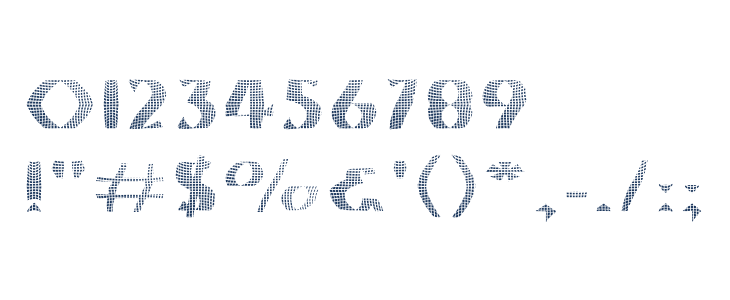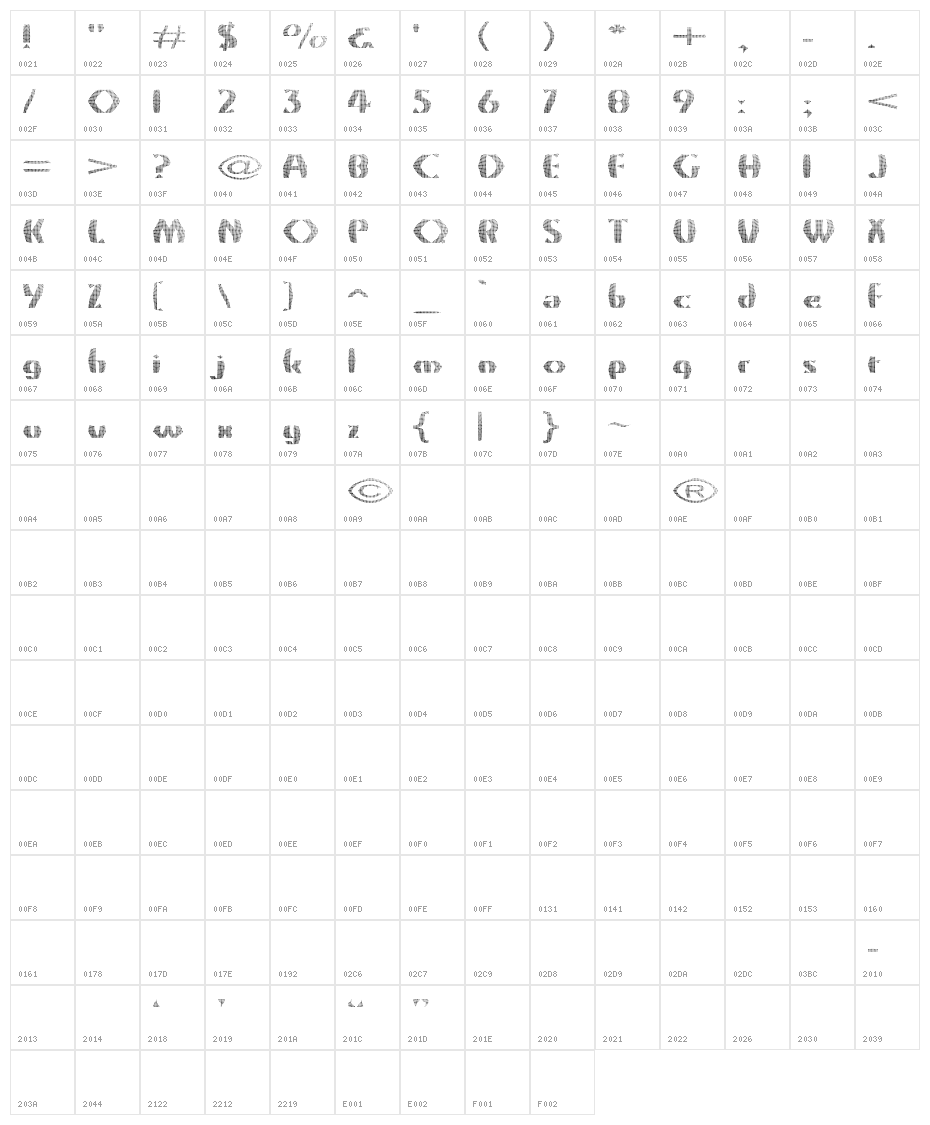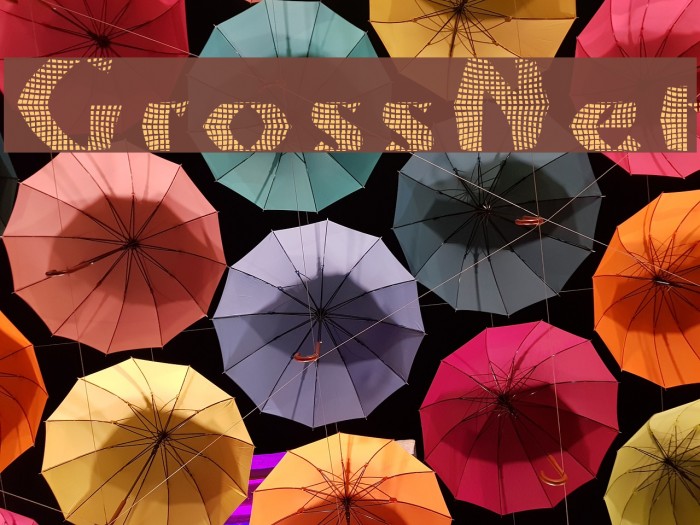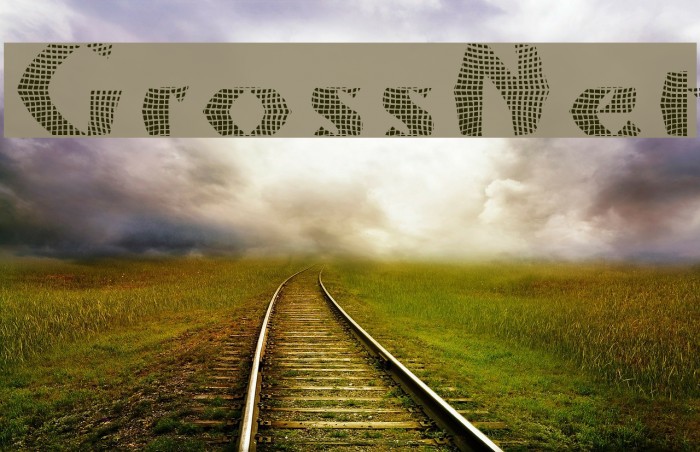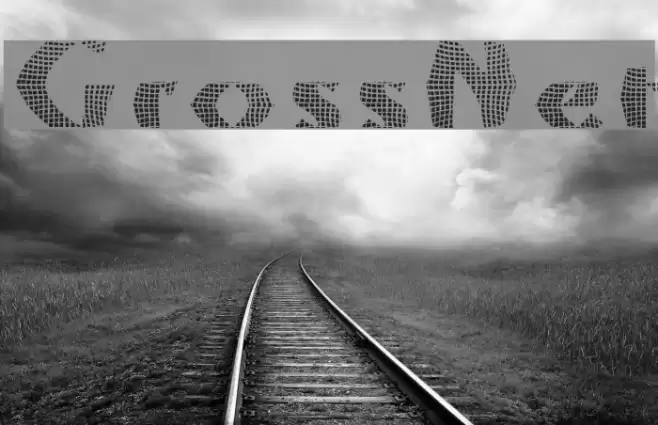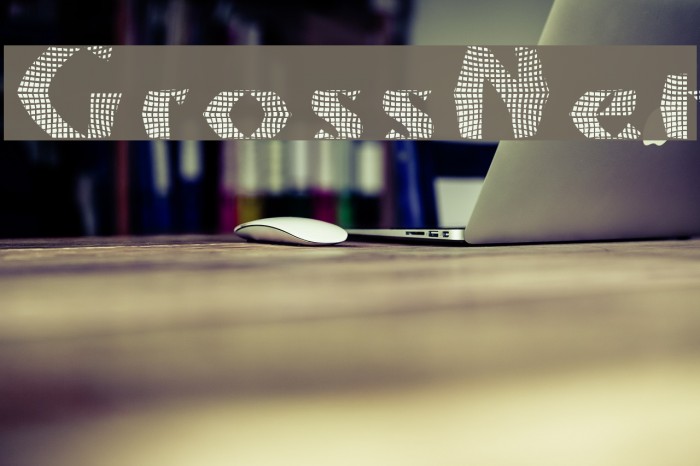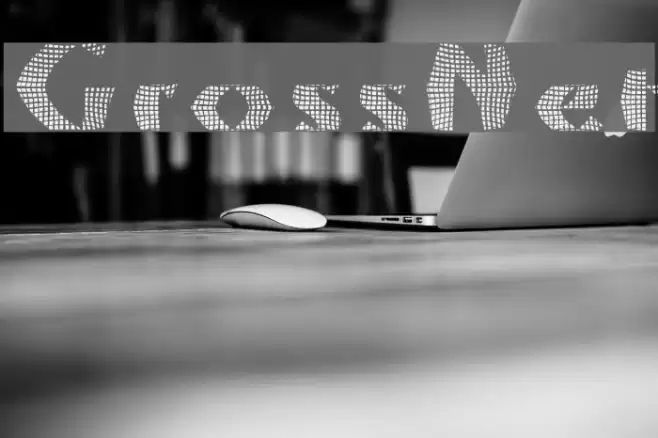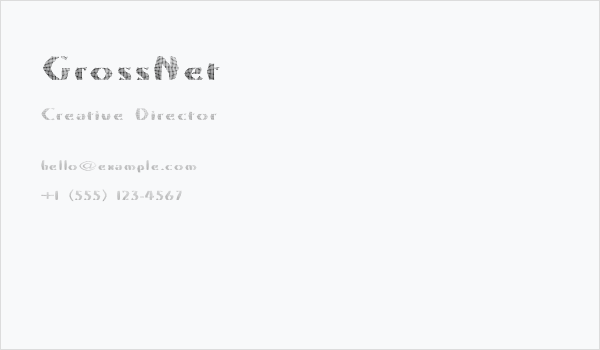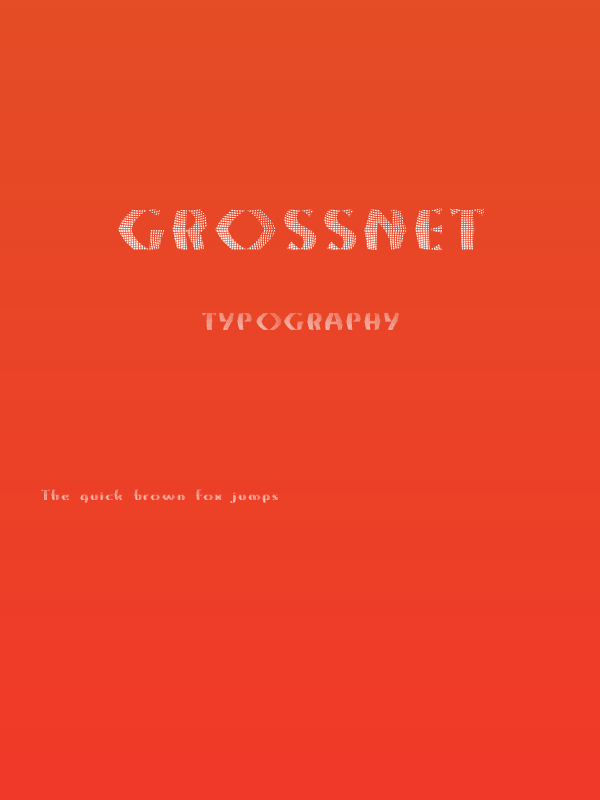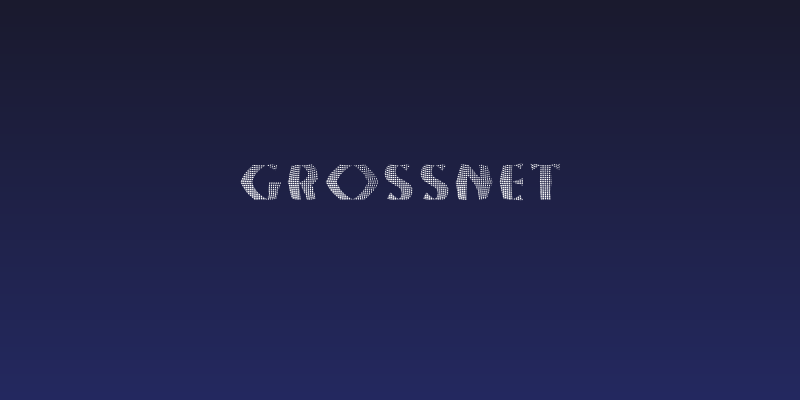
GrossNet Font
GrossNet Description
This font features a unique, textured design that resembles a mesh or net pattern, giving it a distinctive and modern appearance. Each character is composed of small, evenly spaced dots that create a cohesive and visually interesting effect. The uppercase and lowercase letters maintain a consistent style, with rounded edges and a slightly condensed form. Numbers and special characters follow the same design principles, ensuring uniformity across all glyphs. The font's playful yet structured aesthetic makes it suitable for creative projects that require a bold statement. Its intricate detailing and innovative style make it stand out in any design context.
| Proposed Projects | Ideal for branding, posters, digital art, and any project needing a bold, creative touch. |